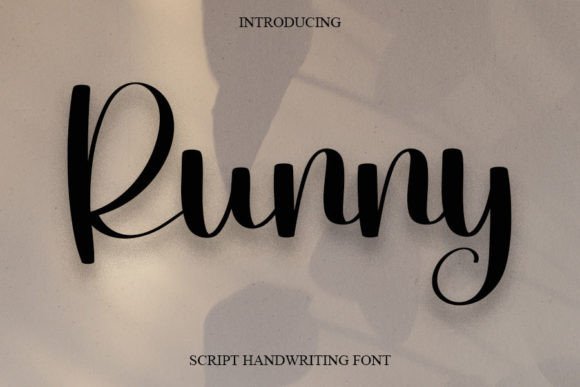
Runny Font: A Handwritten Gem for Your Creative Expressions
In the world of digital artistry, fonts hold the power to transform ordinary words into captivating expressions. They can evoke emotions, set the tone, and make your creations stand out from the crowd. Among the plethora of fonts available, Runny Font shines as a true gem, a creation of Harlek Studio that exudes simplicity, friendliness, and boundless creative potential.
Runny Font belongs to the graceful script font family, a group of fonts that emulate the natural flow and charm of handwritten letters. Its smooth, free-flowing strokes create an inviting and personal touch, making it a perfect choice for adding a human element to your digital designs. Whether you're a seasoned graphic designer or just starting your creative journey, Runny Font is an effortless choice that will elevate your projects with its effortless elegance.
With its versatility, Runny Font effortlessly adapts to a wide range of creative endeavors. Dive into the world of crafts and let Runny Font add a touch of whimsy to your handmade cards, scrapbook pages, and personalized gifts. Embark on digital design projects and witness how Runny Font transforms your social media posts, website designs, and e-commerce listings into visually captivating masterpieces. Unleash your creativity in presentations, where Runny Font's friendly charm will engage your audience and leave a lasting impression.
Runny Font doesn't shy away from the spotlight. It embraces it. Use it to craft beautiful greeting cards that convey heartfelt messages with a personal touch. Whether it's a birthday wish, a thank-you note, or a simple hello, Runny Font will ensure your sentiments shine through with warmth and sincerity.